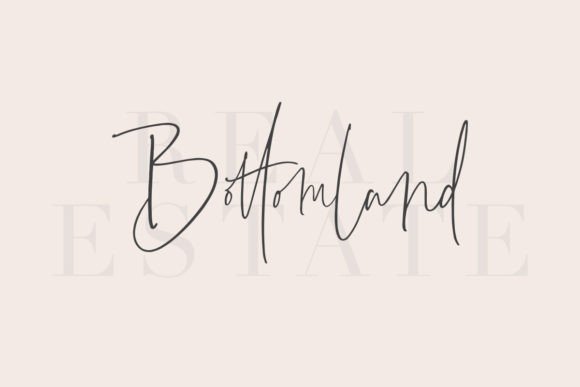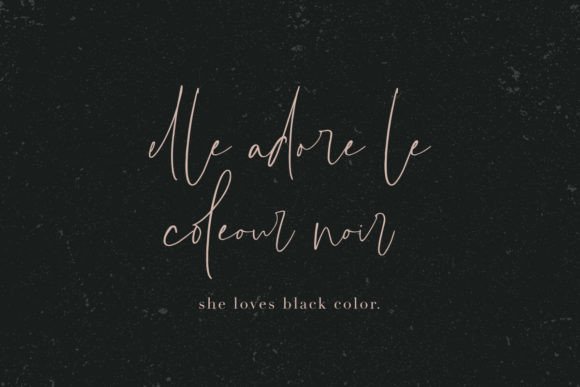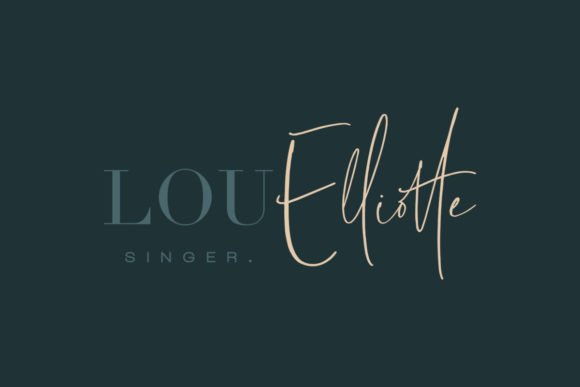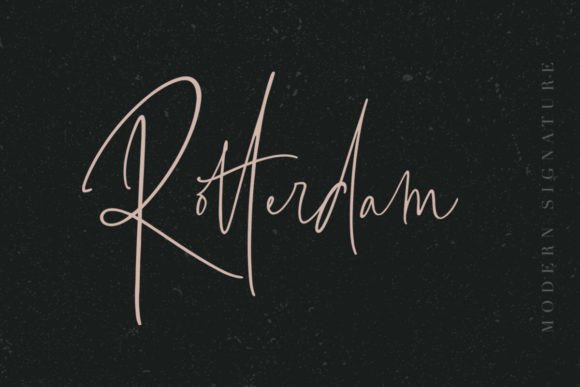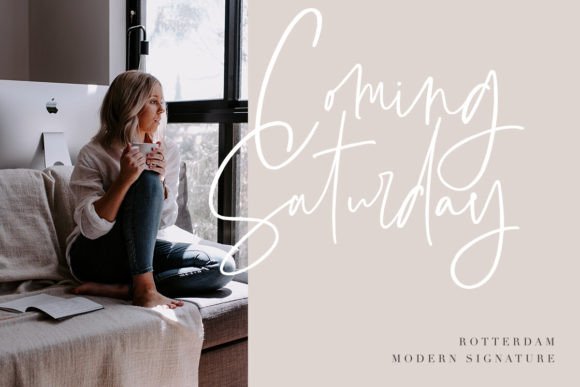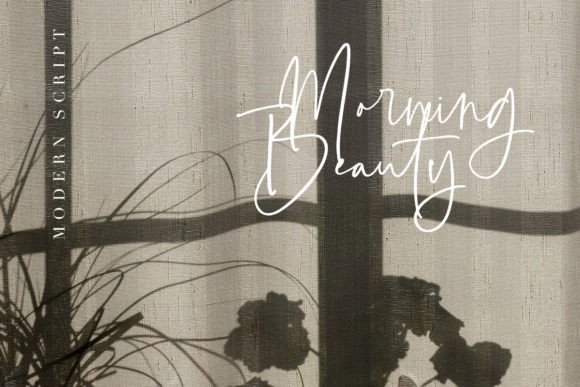
The Elusive Perfect Font: My Journey with Bottomland
I still remember the design project that led me to discover Bottomland. I was working on a luxury brand’s wedding invitation suite, and I was on a mission to find the perfect font. The client wanted something elegant, sophisticated, and unique. I scoured the internet, tried out countless fonts, but nothing seemed to fit the bill. That was until I stumbled upon Bottomland.
This stunning script font has been a game-changer for my design projects, and I’m excited to share my experience with you. From elegant logos to lovely wedding invitation cards, Bottomland has become my go-to font for all things luxury.
What I Love About Bottomland
So, what makes Bottomland so special? Here are a few things that I absolutely love:
- ✨ Smooth wet ink texture: The font has a beautiful, smooth texture that mimics the look of wet ink. This makes it perfect for printing techniques like embroidery, laser cut, and gold foil.
- ✅ Contemporary twist: Bottomland combines traditional letter shapes with a modern twist, making it perfect for luxury projects that need a fresh feel.
- 💫 Highly versatile: From elegant logos to social media headers, Bottomland can be used for a wide range of design projects.
Honest Review: The Not-Perfect-but-Almost Section
While Bottomland is an amazing font, it’s not without its quirks. Here are a few things to keep in mind:
- 🤔 Limited use in body text: While Bottomland is stunning in headlines and titles, it may not be the best choice for body text. The font is quite ornate, which can make it difficult to read in large blocks.
- ⚠️ Requires careful kerning: As with any script font, kerning can be a bit tricky. Make sure to adjust the kerning to get the best results.
The Story Behind Bottomland
While the true story behind Bottomland may be unknown, it’s easy to imagine that the designer was inspired by the smooth, flowing lines of wet ink. Perhaps they wanted to create a font that would evoke the feeling of luxury and sophistication. Whatever the inspiration, Bottomland is a stunning font that’s sure to elevate your designs.
| What is Bottomland font? | Bottomland is a modern script font with a smooth wet ink texture. It’s perfect for luxury projects, such as elegant logos, printed quotes, and wedding invitation cards. |